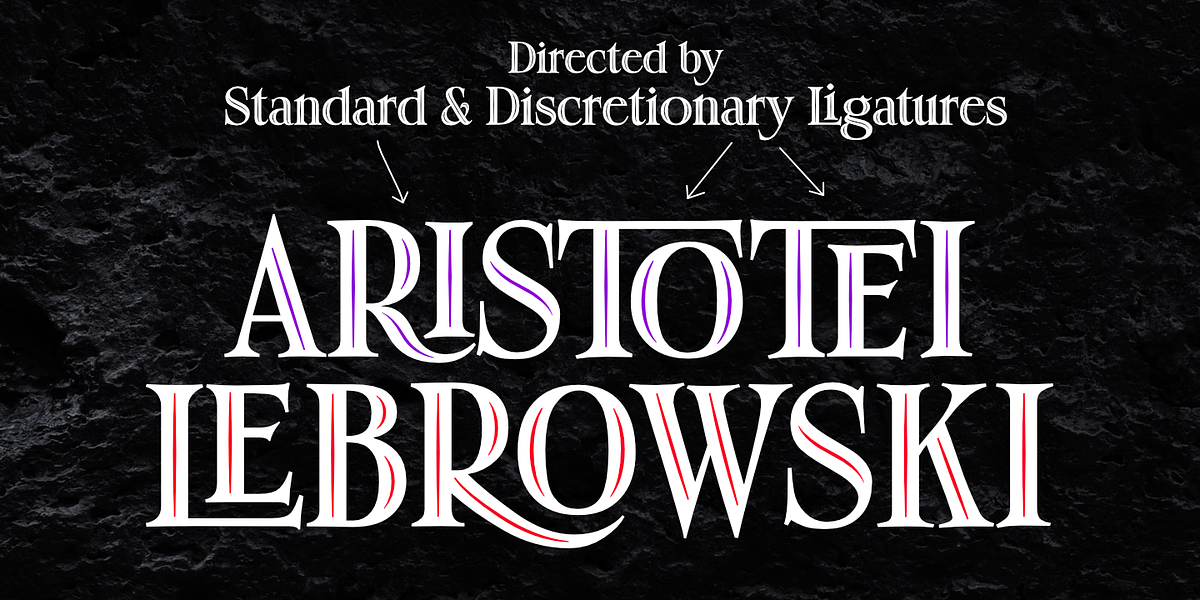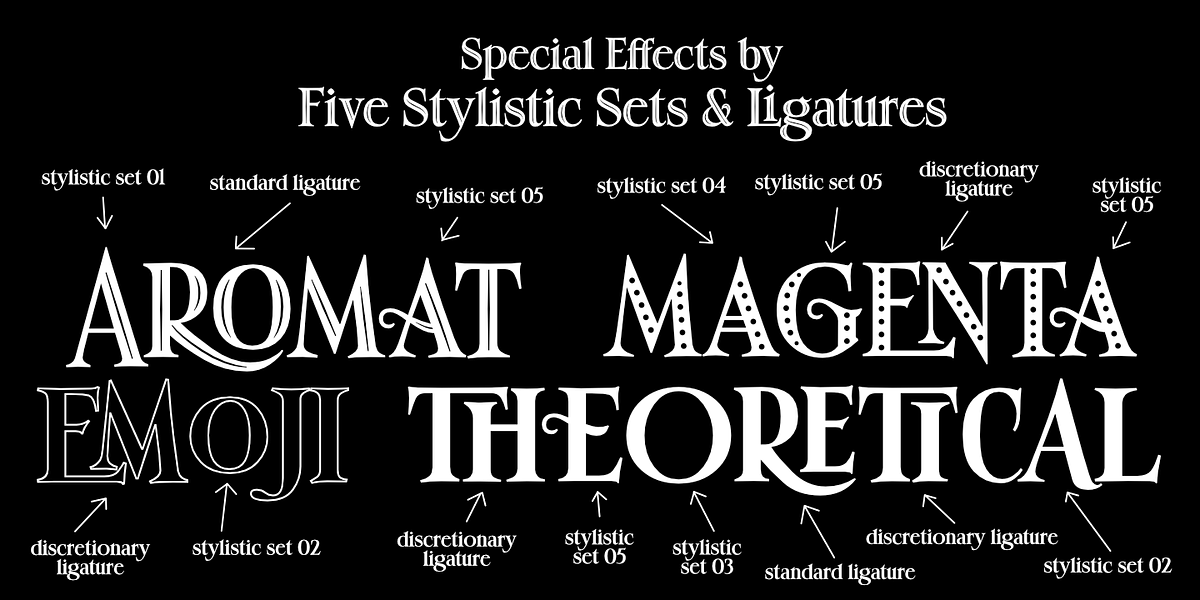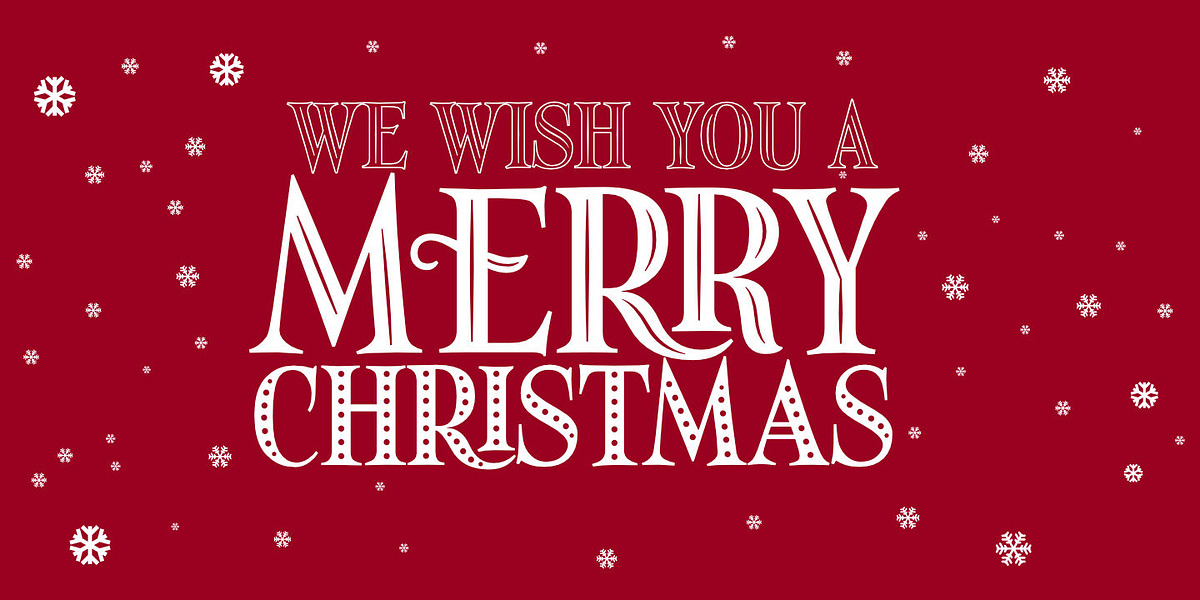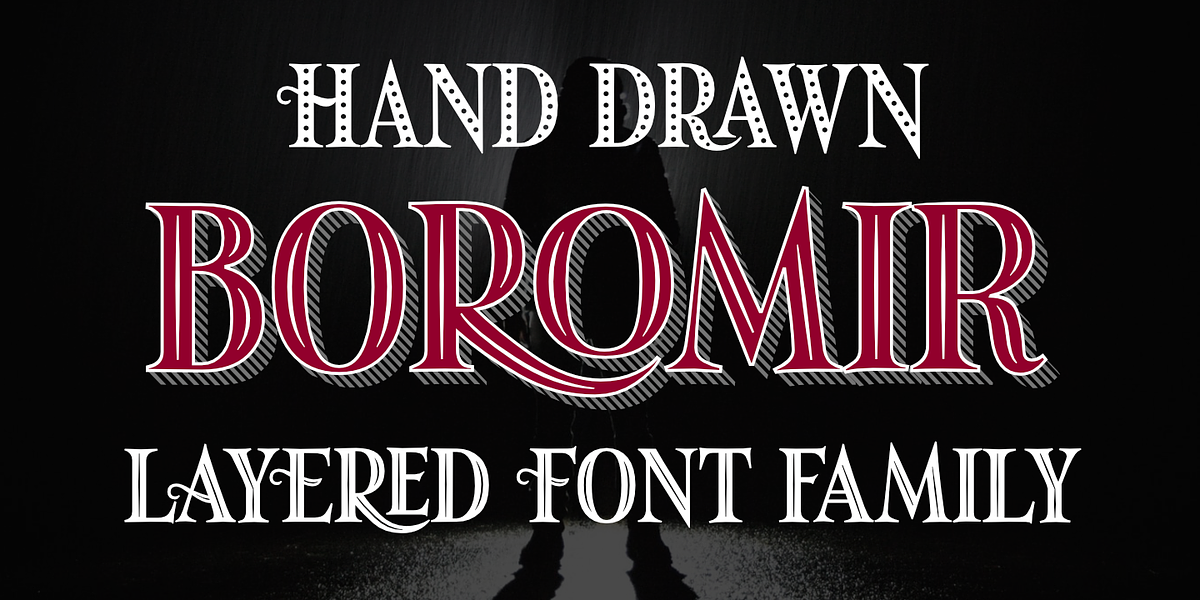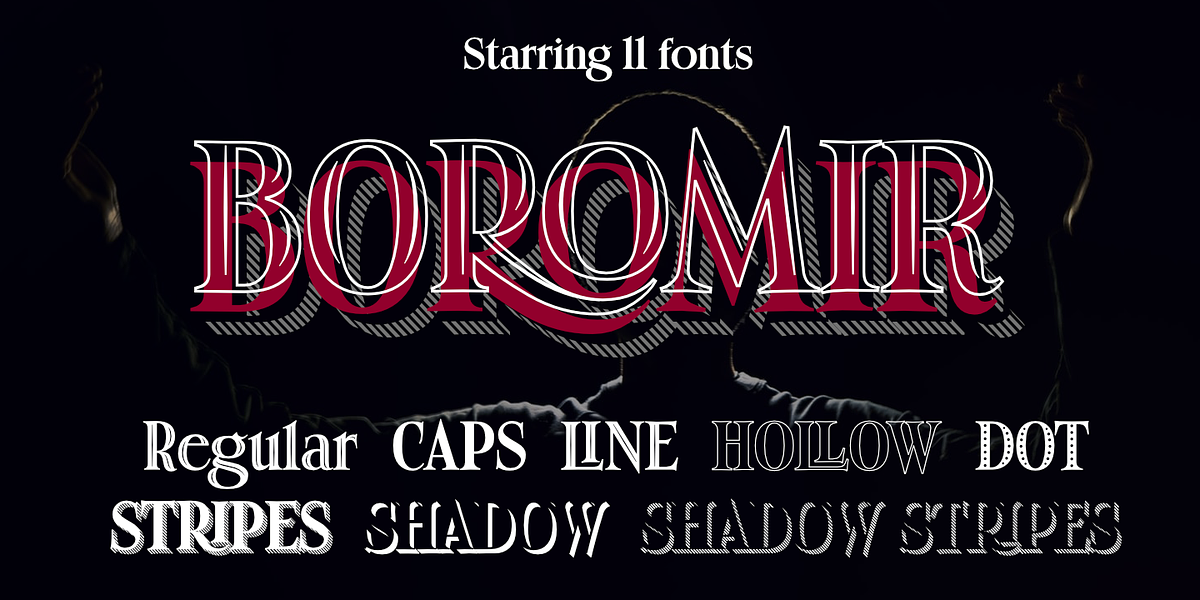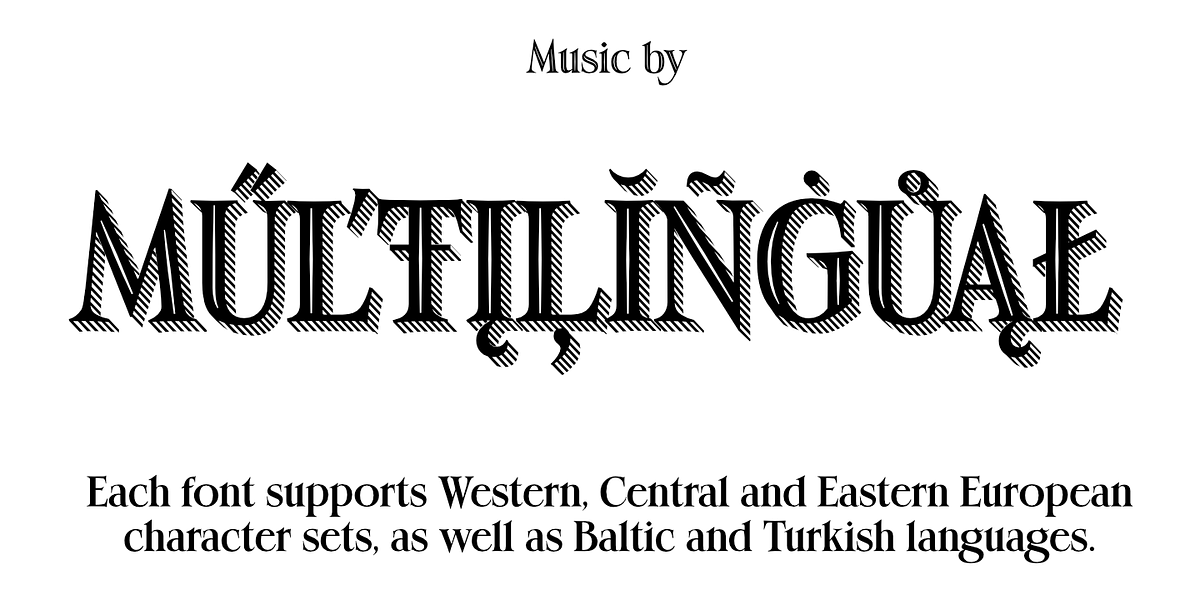
Boromir
Boromir is a hand-drawn serif font with a distinct vintage feel. Its layered design incorporates textured elements like dots and outlines, creating a visually interesting typeface. The font features over 440 glyphs and includes stylistic sets and ligatures for added versatility. Boromir's bold style makes it suitable for a range of display uses, such as invitations, branding materials, posters, and book covers.